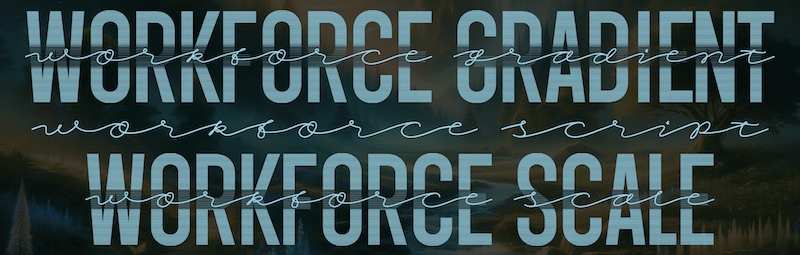
Preview and download Workforce Gradient Font. Created by Måns Grebäck in Fancy Various styles with Free for personal use license.
NOTE: This font is for PERSONAL USE ONLY! To purchase a commercial license, visit: http://mn.sg/workforce Workforce Gradient is a soft blend of modern script and sans-serif lettering. A typeface made for logos and projects intended to leave a strong impression. For questions, please visit www.mansgreback.com/faq |